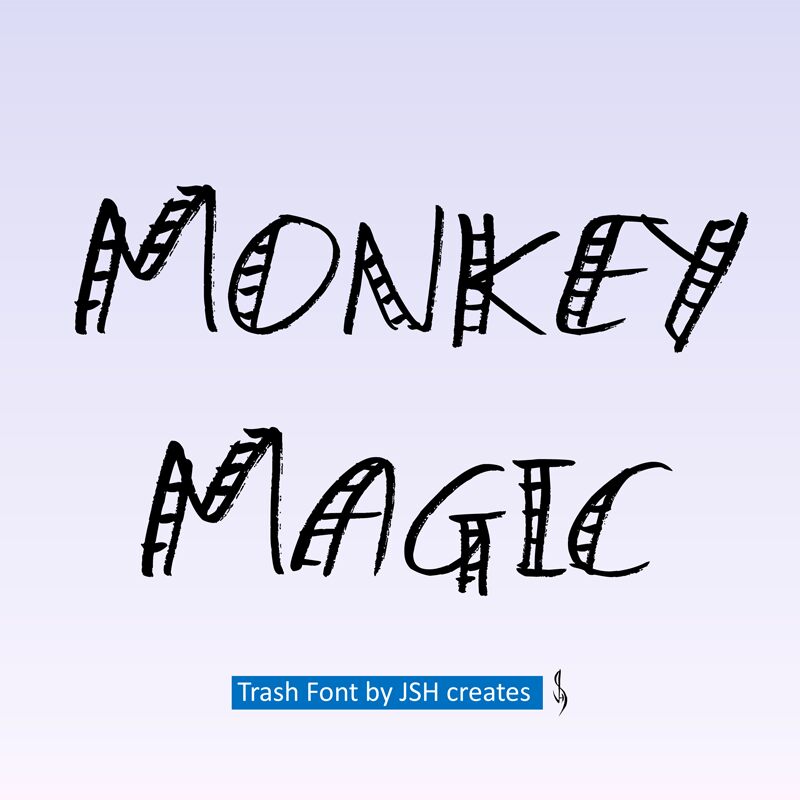
Monkey Magic font, designed by JSH creates, exudes a whimsical charm with its playful handwritten style. Each letter dances with distinct personality, featuring exaggerated strokes and delightful curves that invite creativity. The energetic contours of this font evoke a sense of fun and spontaneity, making it perfect for projects that require an informal touch.
Whether used for children’s book titles, vibrant posters, or lively brand identities, Monkey Magic proves versatile in a variety of design contexts. Its unique flair adds character to any project while ensuring legibility-a balance crucial for effective communication. Elevate your designs with this enchanting font that embodies both imagination and clarity.